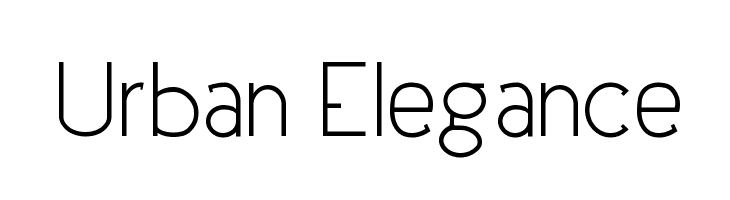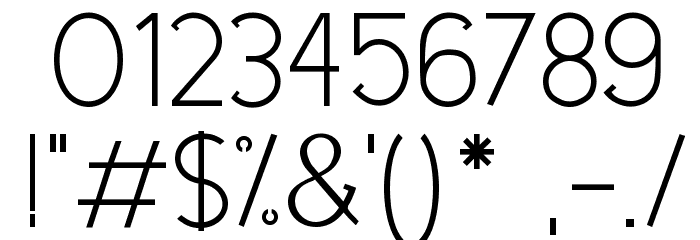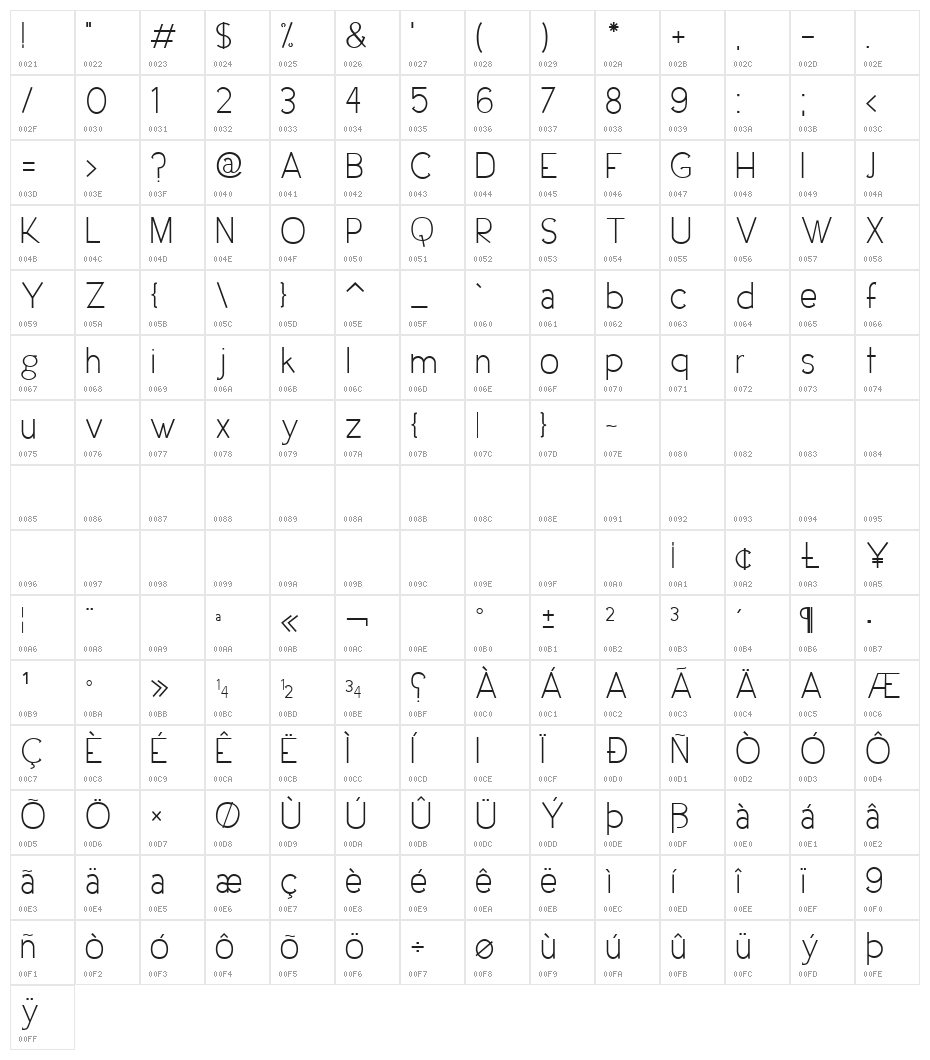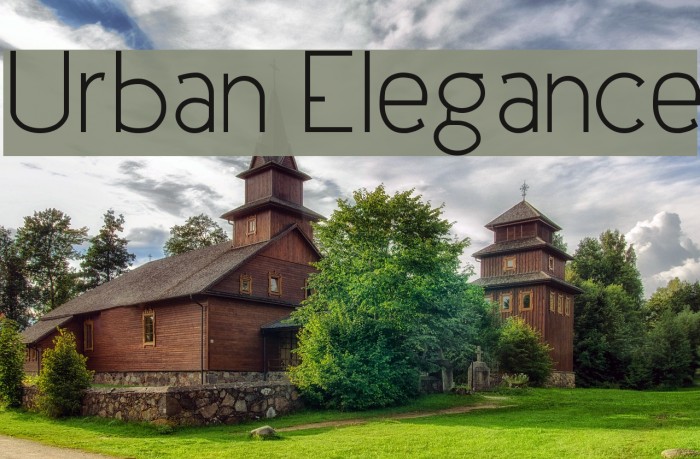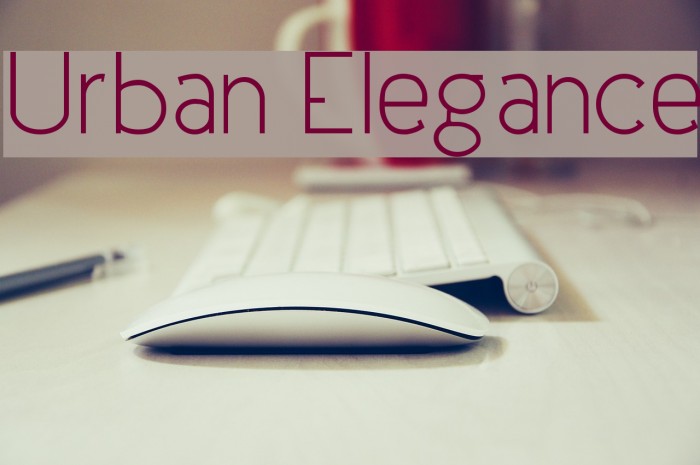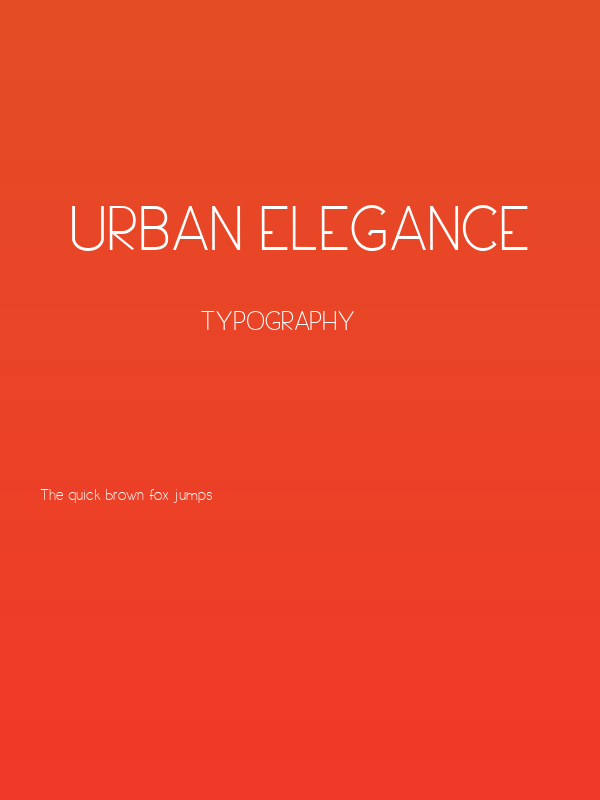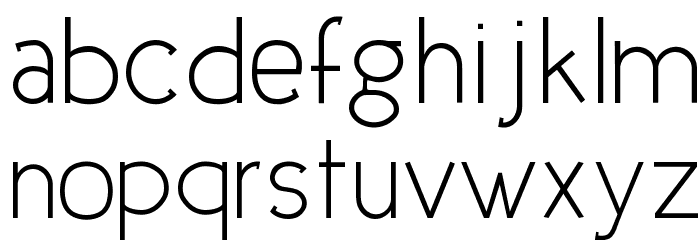
Urban Elegance Font
Urban Elegance Description
This font exudes a modern and minimalist aesthetic, characterized by clean lines and a geometric structure. The uppercase and lowercase letters are well-balanced, with a consistent stroke width that gives it a sleek and contemporary feel. The numerals are clear and easy to read, maintaining the same geometric style as the letters. Special characters are designed with simplicity in mind, ensuring they integrate seamlessly with the rest of the typeface. This font is versatile, suitable for a variety of design applications where clarity and modernity are desired.
| Proposed Projects | Ideal for branding, web design, advertising, and editorial layouts where a modern and clean look is desired. |